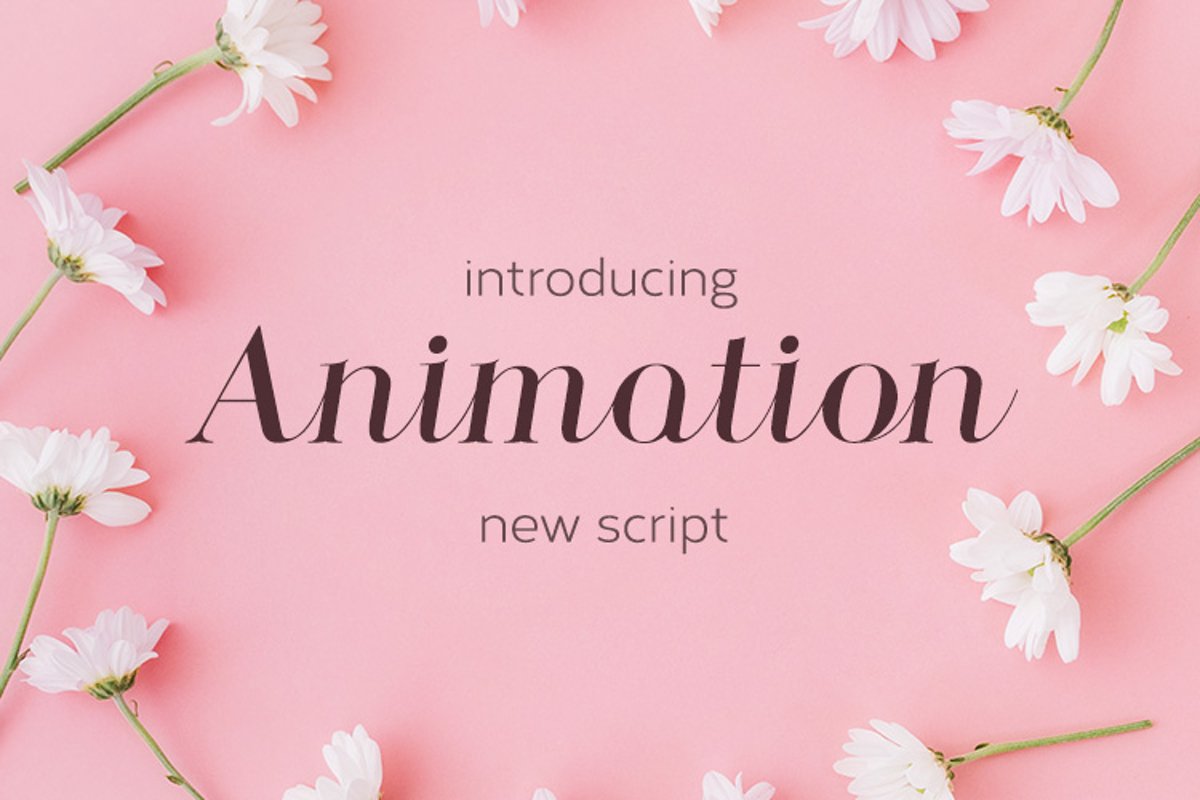
Introducing brand new script which is serif based. It has tiny details that make you happy! Animation supports all european languages, so you can use your mother language. Enjoy it)